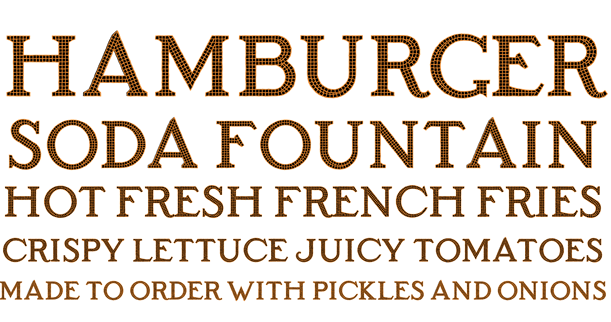
Subway Mosaic
The SUBWAY MOSAIC fonts were inspired by the classic mosaic tile signs of the New York City subway system, dating to the early 20th century. I’ve tried to maintain the somewhat quaint letterforms while regularizing them for contemporary use. There are 3 fonts (White, Black and Solid) that can be used independently or layered in different colors for endless variation. Version 1.5 includes an expanded character set and improved kerning.